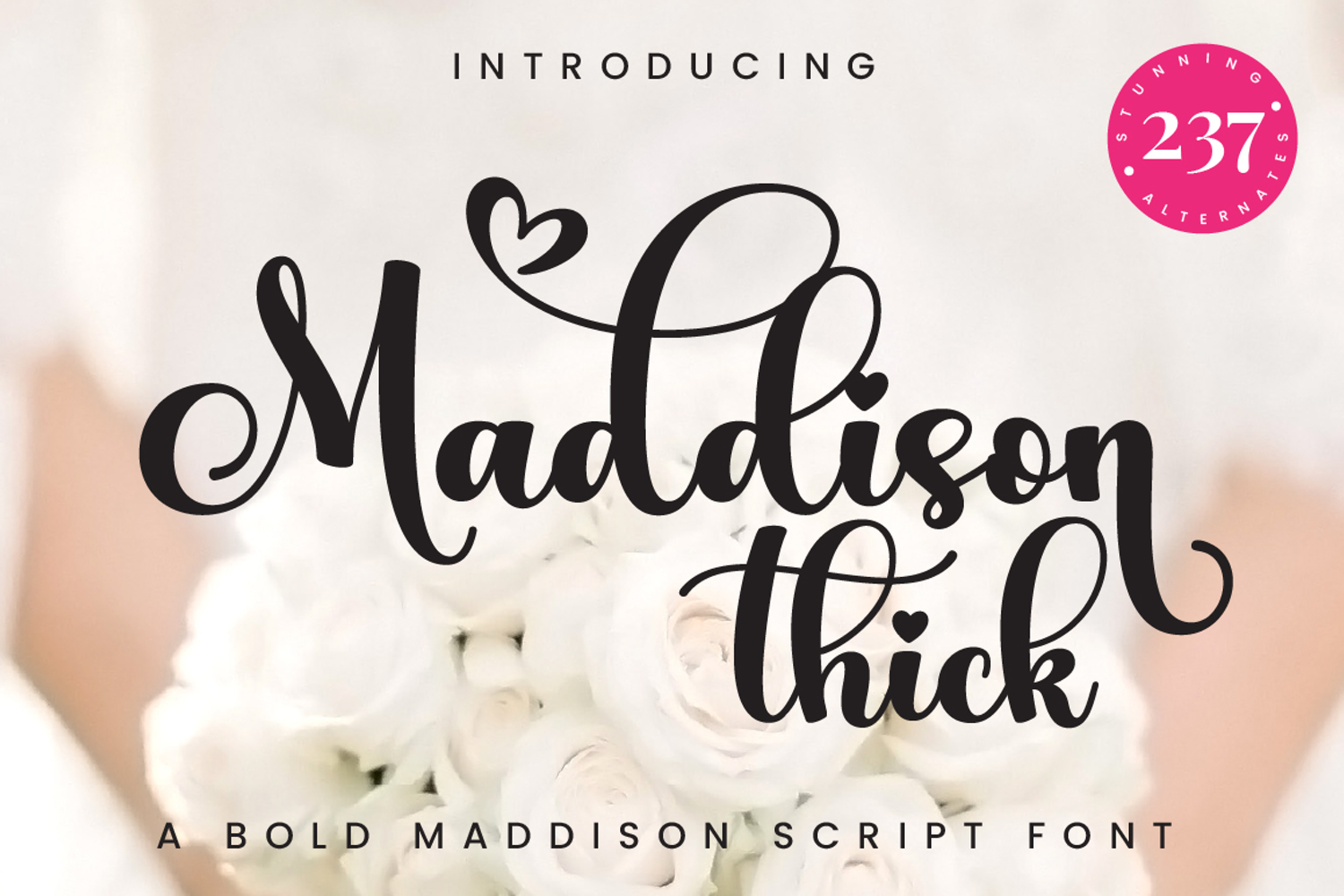
Maddison Thick - Bold Romantic Calligraphy
Maddison Thick
Maddison Thick is a bold version of the Maddison font but with the addition of several new lovely stylistic alternates and several improvements as well. Maddison Thick font perfect for logos, wedding stationery, cards, gift designs, photography, watermark, product packaging and handwritten quotes. This font includes 9 lovely stylistic set also full set of uppercase and lowercase letters, multilingual symbols, numerals and punctuation and ligatures. This font is PUA encoded which means you can access all of the glyphs and swashes with ease!